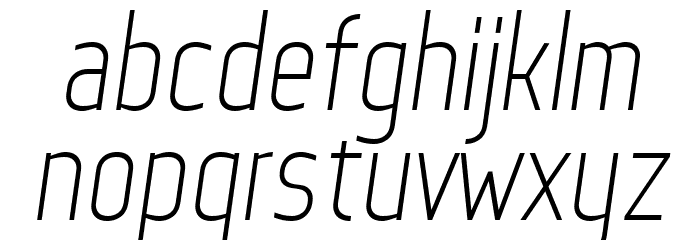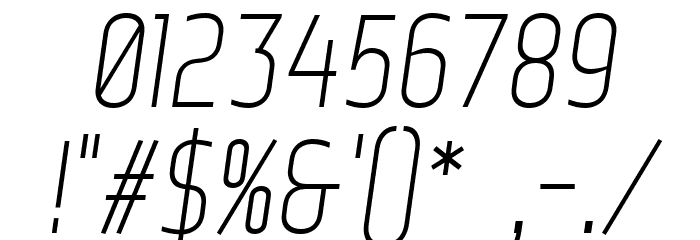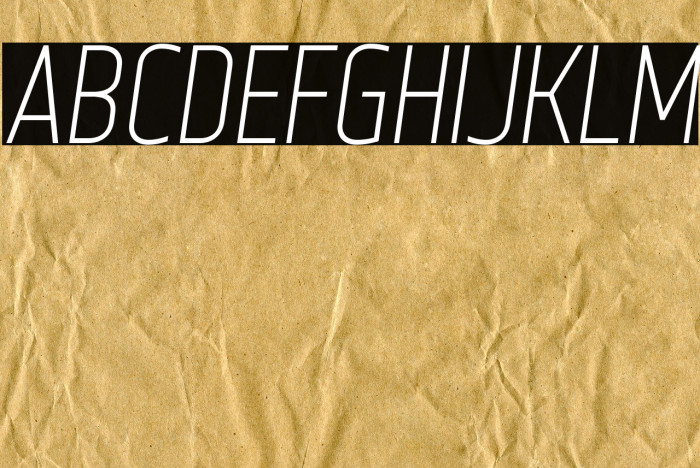
Web Serveroff Italic Font
This font features a sleek and modern design with a distinct italic slant, giving it a dynamic and forward-moving appearance. The characters are elongated and slightly condensed, contributing to a streamlined look. The strokes are consistent in weight, providing a uniform and cohesive aesthetic across all characters. The font maintains a clean and professional feel, making it suitable for a variety of applications. The numerals and special characters are designed to match the overall style, ensuring visual harmony. Its contemporary style is ideal for projects that require a touch of elegance and sophistication.
A sleek, modern italic font with a streamlined, condensed design.
- Proposed Projects: Ideal for branding, advertising, and editorial design projects that require a modern and sophisticated touch.
- Use Case: Headlines, Logos, Editorial design